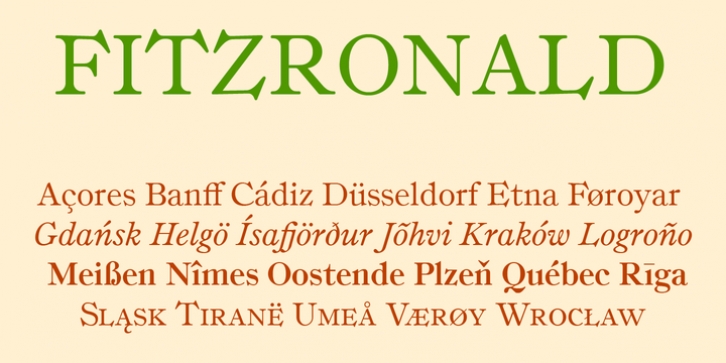
Fitzronald is a body text typeface with a strong personality combined with a good legibility in small sizes. It is an excellent book typeface, but it can be used in e.g. advertising and packaging as well. Due to its good legibility at low resolution, the Webfont version is a superb website typeface.
Fitzronald is based on Ronaldson, an American typeface originally cut by MacKellar, Smiths & Jordan in 1884. The popularity of Ronaldson lasted for several decades, and copies of the typeface -- more or less accurate -- were issued by other type foundries in America and Europe. The typeface was also adapted for machine composition by the Monotype and Linotype companies.